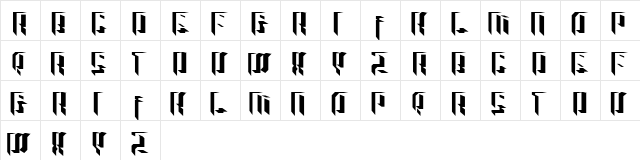
Raver Kids Regular Free Font
Raver Kids Regular
Design Context for Raver Kids
Raver Kids has an approachable, lighthearted character - its loose, expressive forms are well-suited to children's content, casual branding, and fun-first design.
Font Pairing: Pairs well with a rounded or humanist sans for body copy, maintaining the friendly tone without relying on Raver Kids to carry extended reading.
Pro Tip: Use Raver Kids at larger display sizes where its expressive character can land. Pair with a clean, simple sans for body copy to maintain readability.